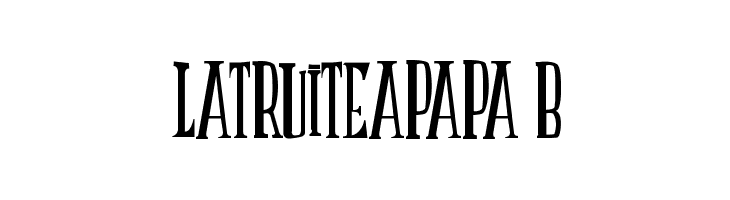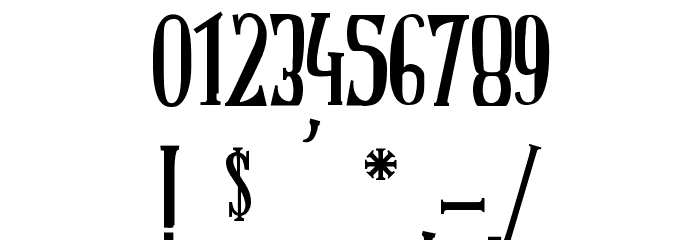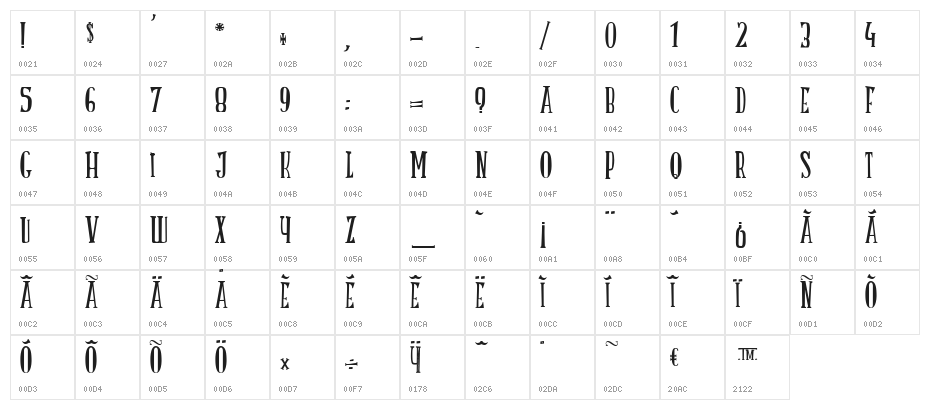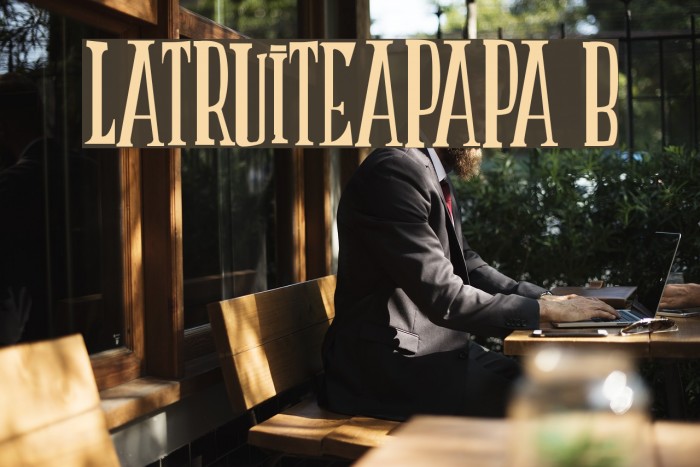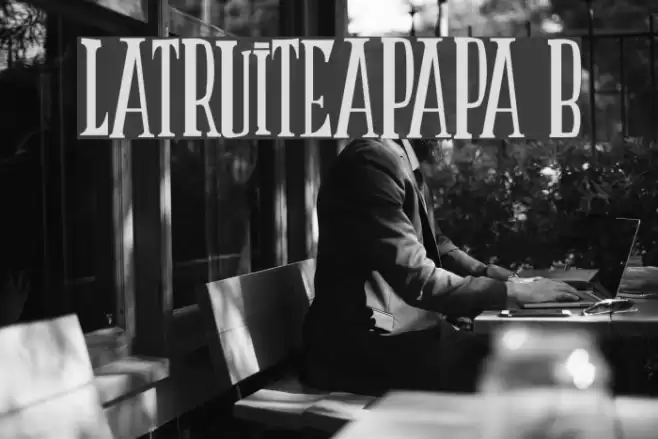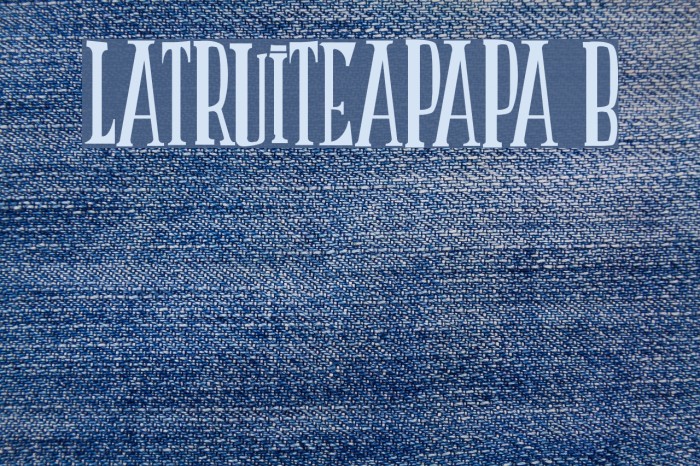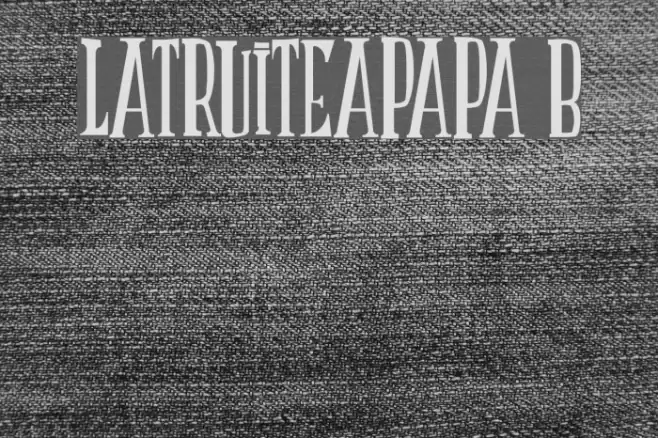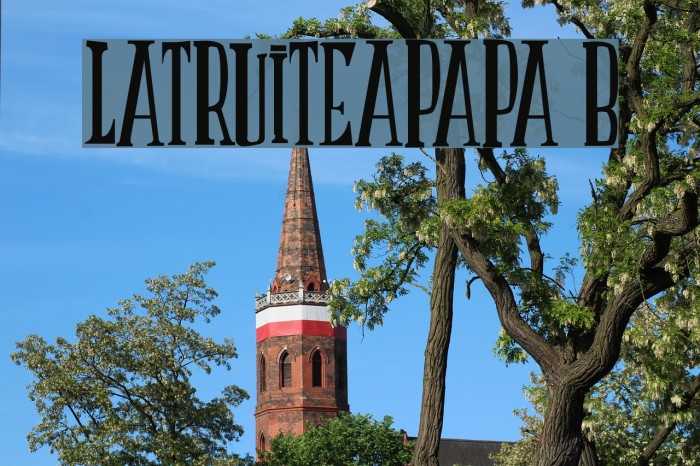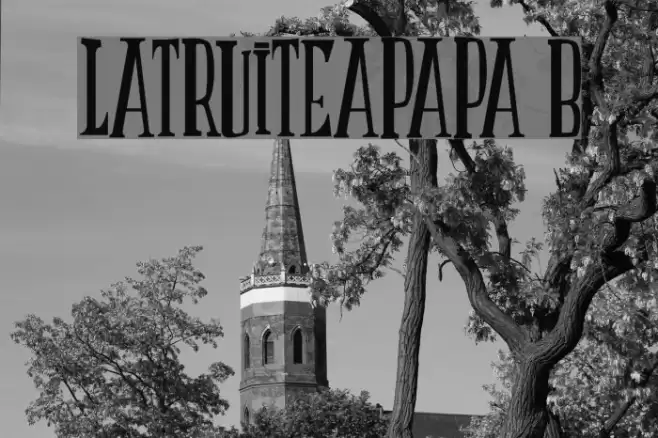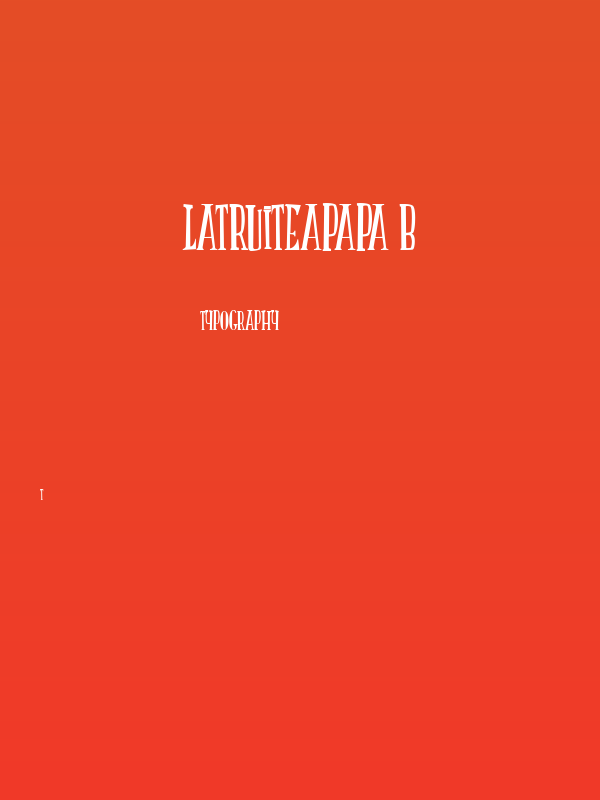
LATRUITEAPAPA B Font
LATRUITEAPAPA B Description
This font features a bold and dramatic style with high contrast between thick and thin strokes, giving it a striking and memorable appearance. The uppercase letters are tall and narrow, with unique serifs that add a touch of elegance and sophistication. The numerals and special characters maintain the same boldness, ensuring consistency across all characters. The overall design is reminiscent of vintage or retro styles, making it suitable for projects that require a touch of nostalgia or classic appeal.
| Use Case | Headlines, Logos, Decorative text |
| Proposed Projects | Ideal for vintage-themed posters, retro branding, book covers, and decorative signage. |